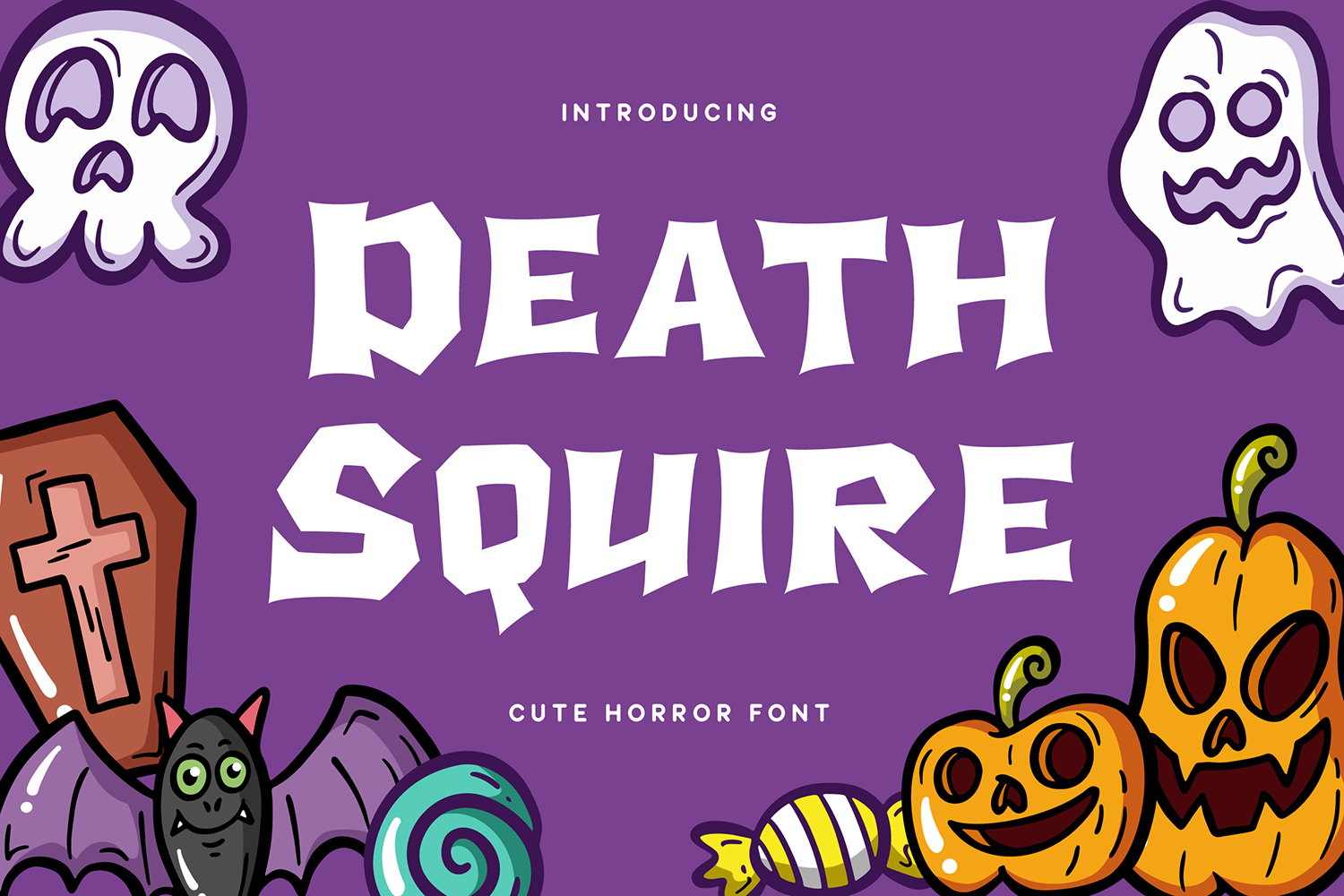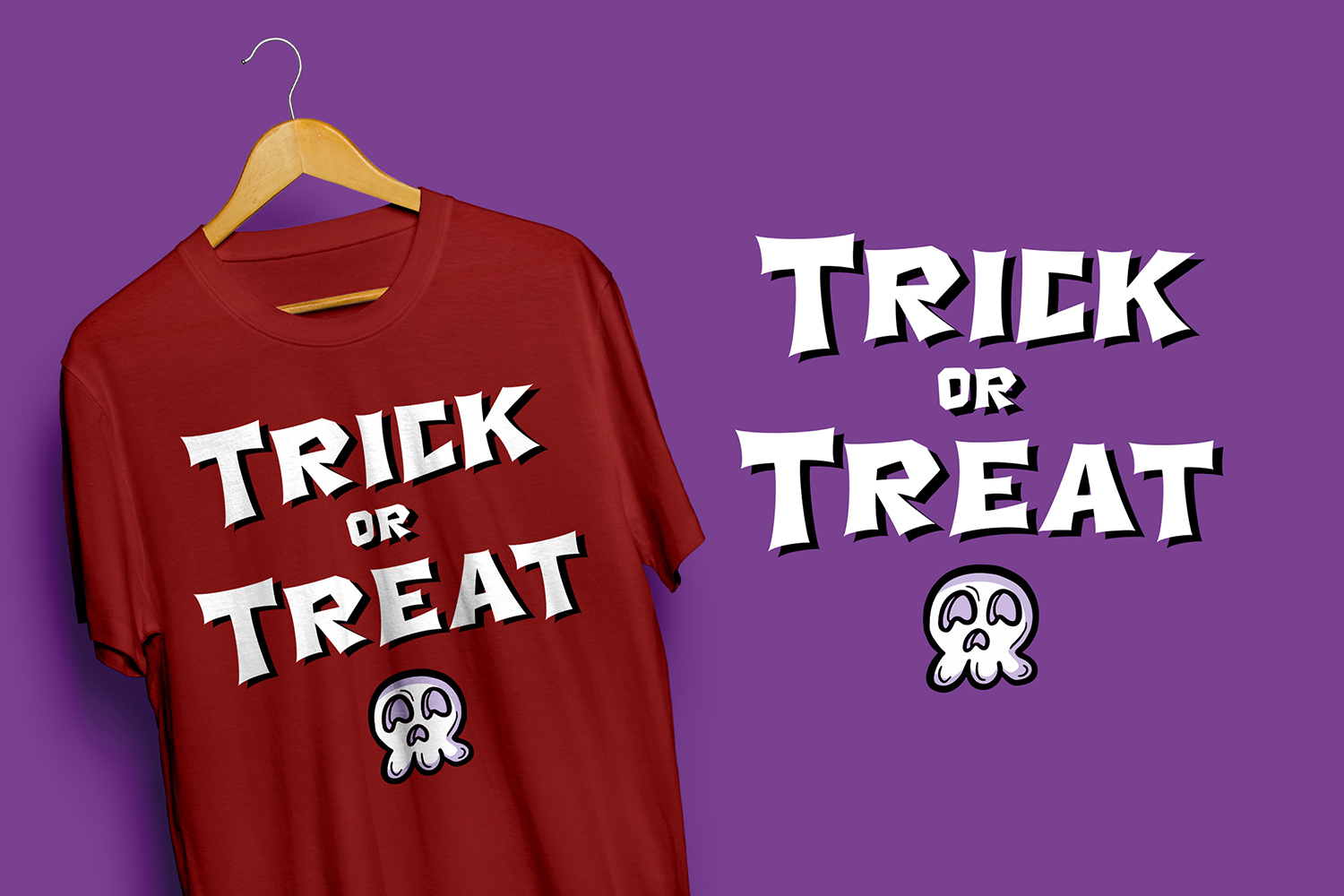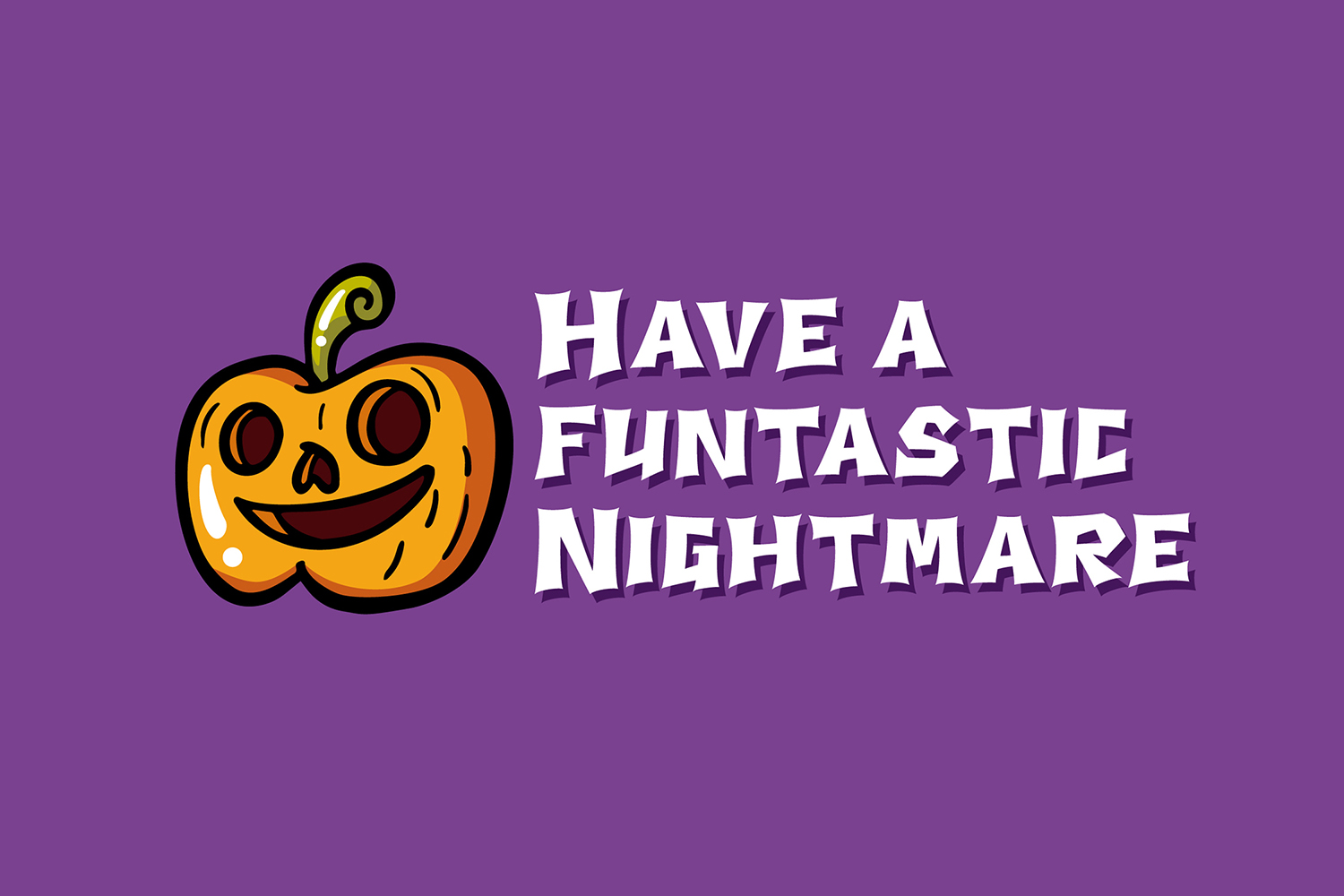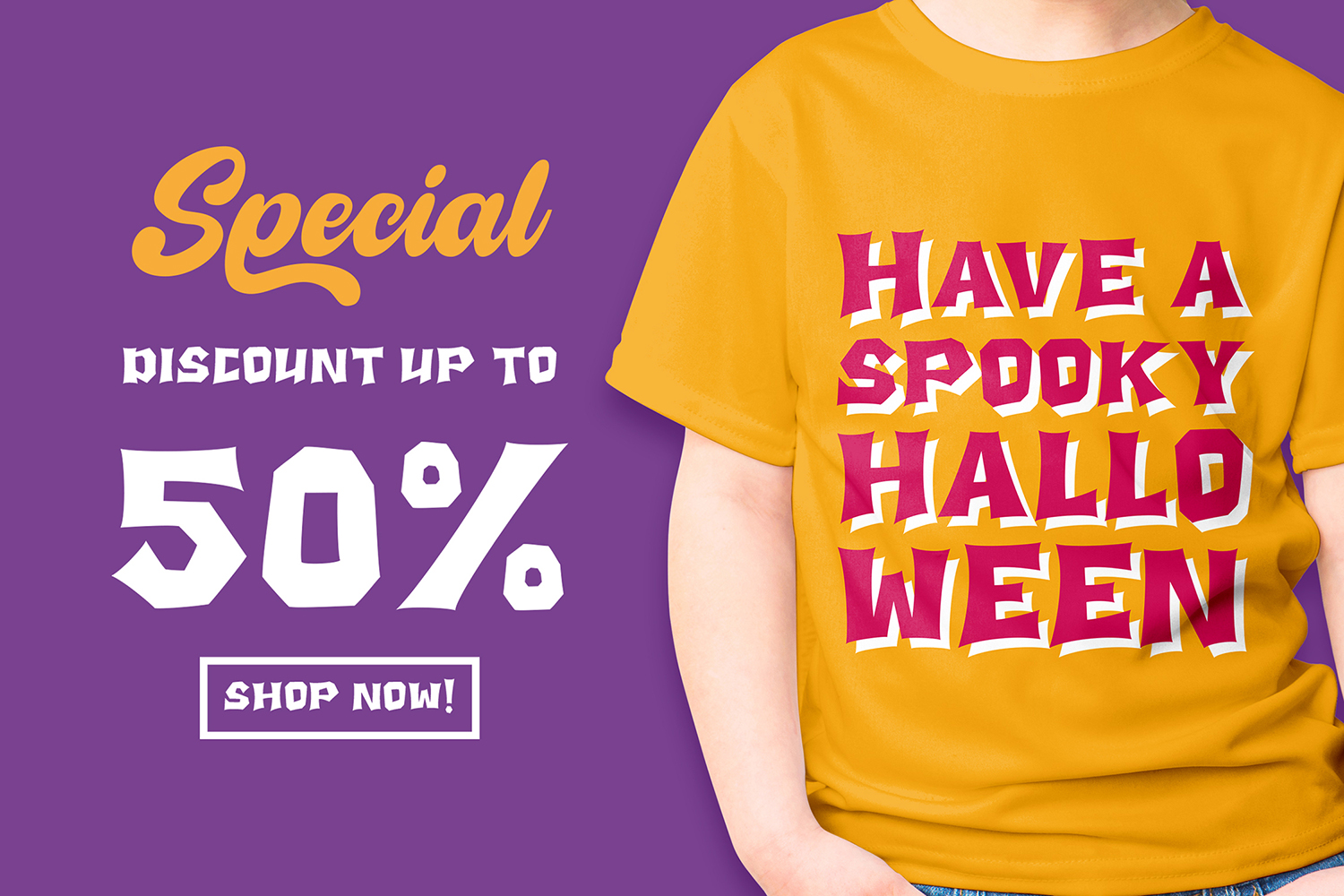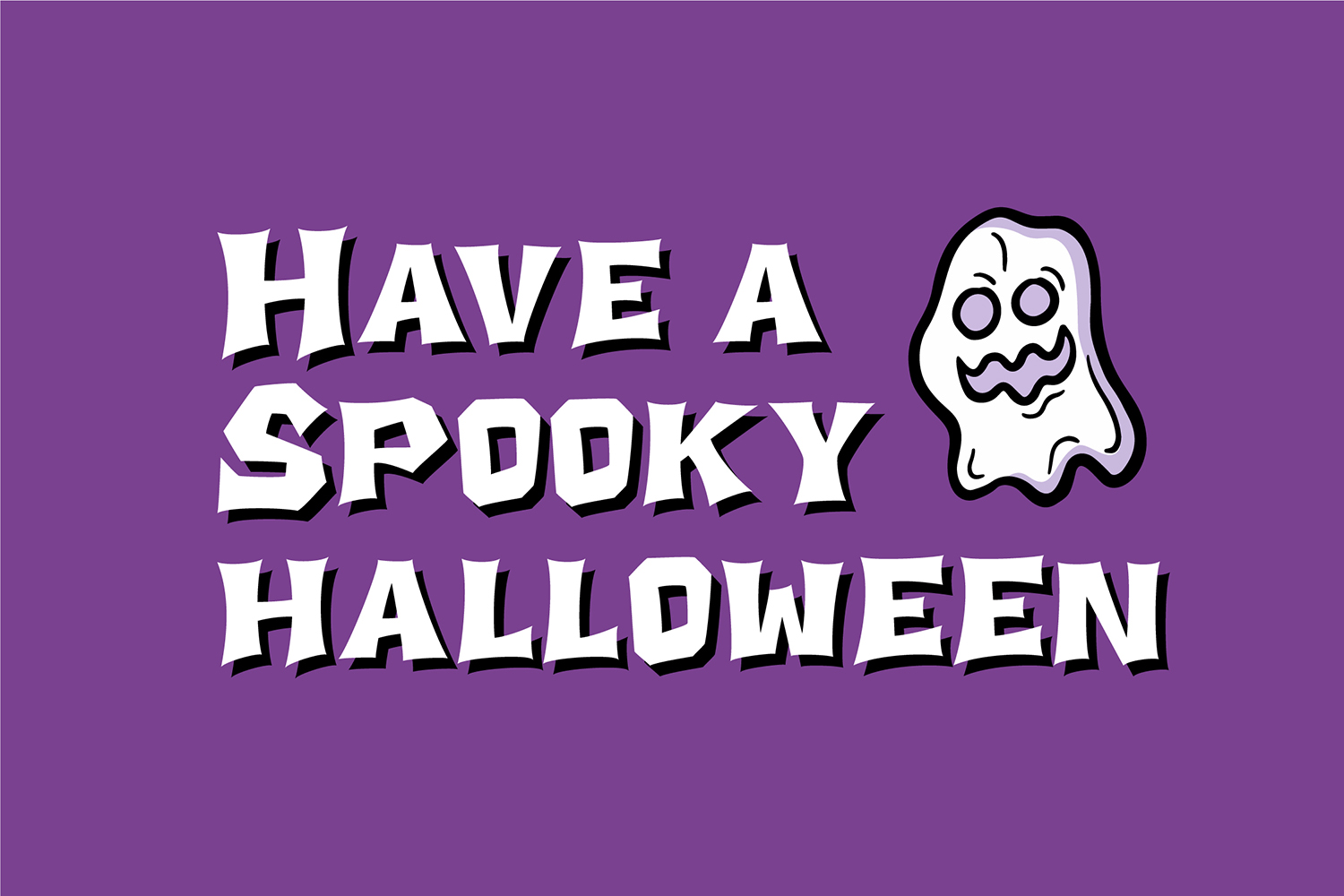
Death Squire Free Font
Death Squire Free Font is cute horror display font. The perfect match for any Halloween designs. This free typeface was designed by a talented Akhmad Reza Fauzi. If you like it don’t forget to check out the full version.